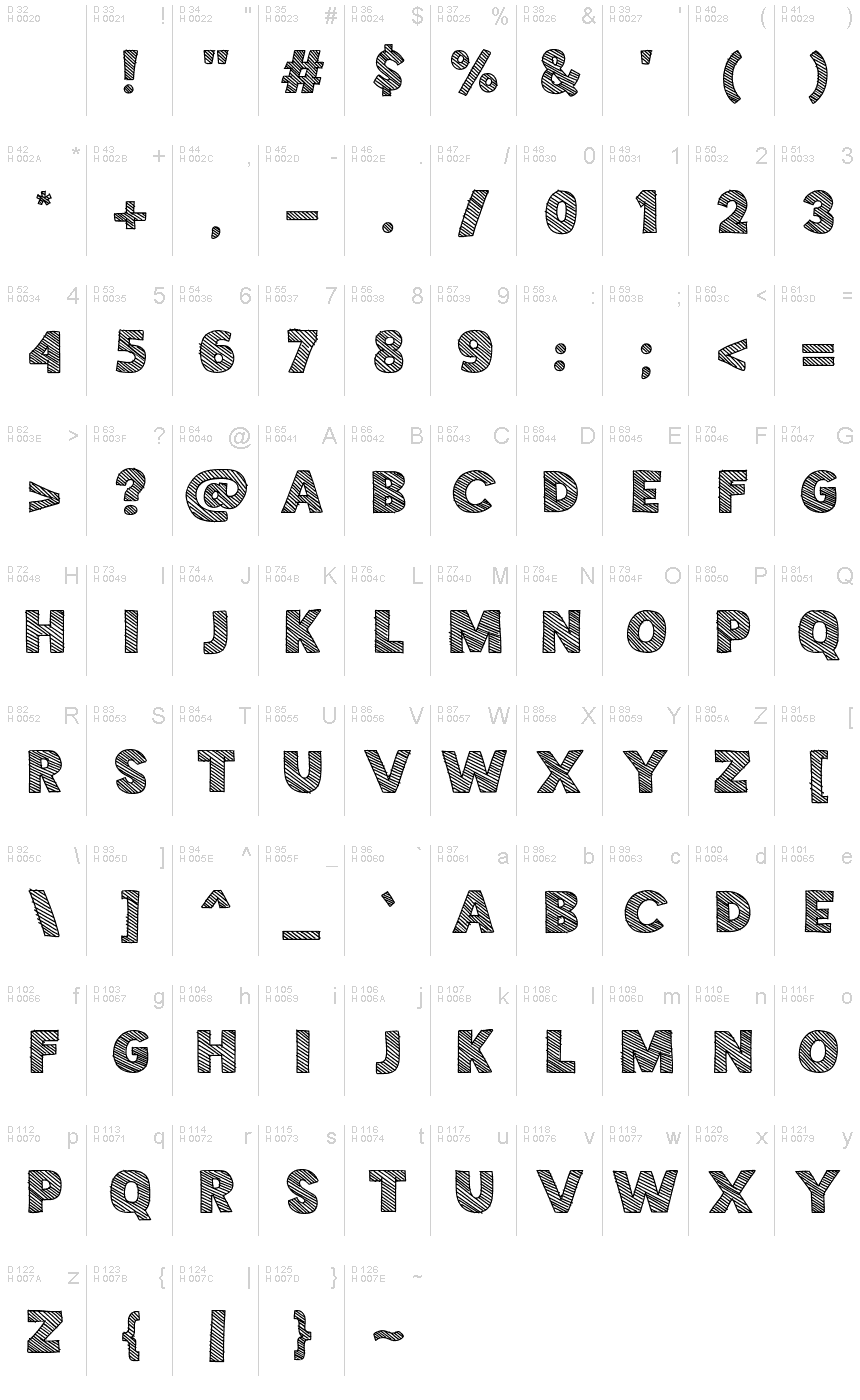
The Crossed Out font, designed by Khurasan, is a captivating display typeface that exudes a playful and whimsical vibe. With its extra-bold weight and semi-expanded width, this font demands attention and adds a touch of excitement to any project.
Perfect for children's books, comic strips, or animated videos, Crossed Out brings characters and scenes to life with its cartoon-inspired style. Whether you're creating eye-catching logos or designing vibrant posters, this font is an excellent choice for projects that require a bold and energetic aesthetic.